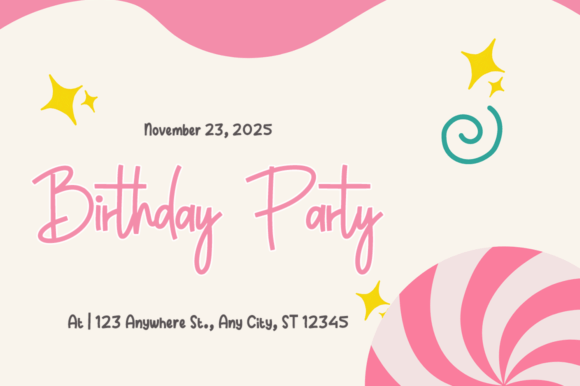
Sugar Candy Font: The Ultimate Duo for Modern Charm and Amusement
In the world of design, fonts play a crucial role in conveying the tone and aesthetic of a project. With the vast array of fonts available, finding the perfect one that embodies both modern charm and amusement can be a daunting task. However, look no further than the Sugar Candy Font, an adorable and effervescent duo that is sure to elevate your design repertoire.
Introducing Sugar Candy Font
Sugar Candy Font is a modern duo font that exudes cuteness and style. Its effortlessly attractive aesthetic makes it the perfect addition to a variety of design projects, from children’s events to trendy t-shirt graphics. The font’s unique design ensures that it can be used in unison or individually, providing versatility and flexibility in your design endeavors.
Endless Design Possibilities with Sugar Candy Font
The Sugar Candy Font duo is incredibly versatile and can be used in a wide range of design applications. Some of the many uses of this font include:
- Effervescent children’s events: Create eye-catching posters, flyers, and invitations that will capture the attention of kids and parents alike.
- Engaging school projects: Add a playful touch to school projects, presentations, and reports with the Sugar Candy Font.
- Festive holiday decor: Use the font to create festive holiday decorations, such as garlands, banners, and gift tags.
- Celebratory birthday invites: Design personalized and fun birthday invitations that will set the tone for an unforgettable celebration.
- Sun-soaked summer designs: Create vibrant and playful summer-themed designs, such as beach posters, summer camp flyers, and ice cream shop menus.
- Trendy t-shirt graphics: Add a modern and stylish touch to t-shirt designs with the Sugar Candy Font.
- Sentimental crafting projects: Use the font to create heartfelt and personalized crafting projects, such as handmade cards and scrapbook pages.
- Standout stickers: Design attention-grabbing stickers that will make your products or packaging stand out.
- Vibrant sublimation designs: Create stunning sublimation designs for products, such as mugs, phone cases, and tote bags.
The Benefits of Using Sugar Candy Font
The Sugar Candy Font duo offers numerous benefits that make it an excellent addition to your design repertoire. Some of the key benefits include:
- Playful and modern aesthetic: The font’s unique design ensures that your designs will have a playful and modern aesthetic that will capture the attention of your audience.
- Versatility: The Sugar Candy Font duo can be used in a wide range of design applications, making it a valuable asset for designers.
- Easy to read: The font is easy to read, even in small sizes, making it perfect for use in various design projects.
- Customizable: The font can be customized to fit your design needs, allowing you to adjust the size, color, and style to suit your project.
Design Tips for Using Sugar Candy Font
To get the most out of the Sugar Candy Font duo, here are some design tips to keep in mind:
- Pair with complementary fonts: Pair the Sugar Candy Font with complementary fonts to create a unique and visually appealing design.
- Experiment with colors: Experiment with different colors and color combinations to add depth and interest to your design.
- Use in combination with graphics: Use the Sugar Candy Font in combination with graphics and illustrations to create a visually appealing design.
- Keep it simple: Don’t overcomplicate your design – keep it simple and clean to ensure that the font is the focal point.
In conclusion, the Sugar Candy Font duo is an excellent addition to any design repertoire. Its playful and modern aesthetic, versatility, and ease of use make it perfect for a wide range of design applications. Whether you’re a professional designer or a DIY enthusiast, the Sugar Candy Font duo is sure to elevate your designs and add a touch of modern charm and amusement.
Get Ready to Elevate Your Designs with Sugar Candy Font